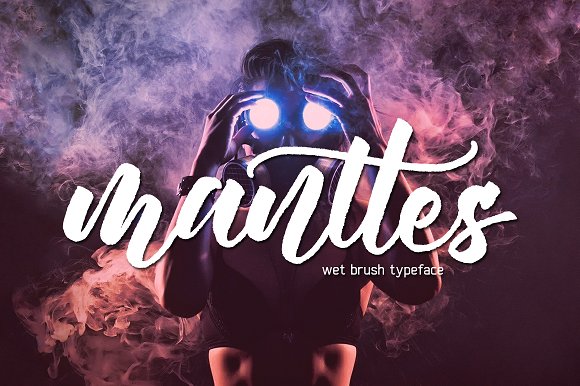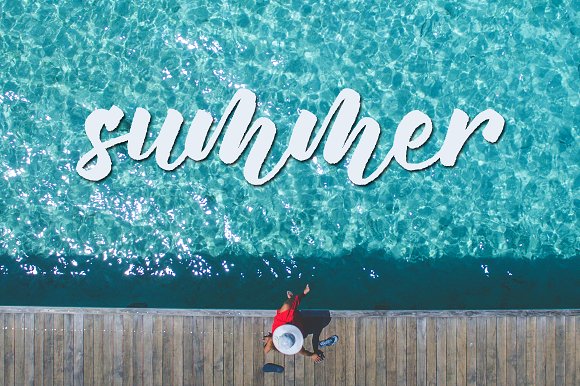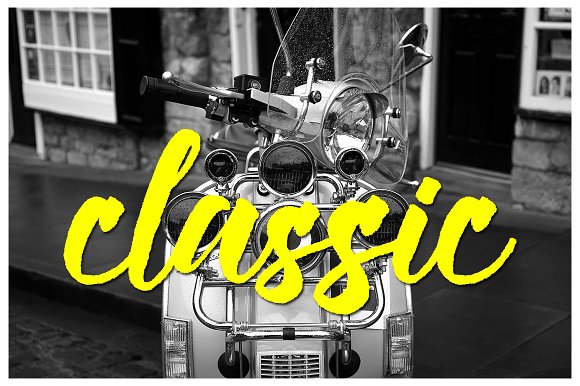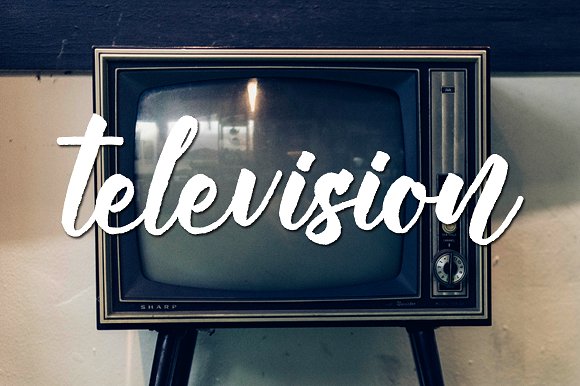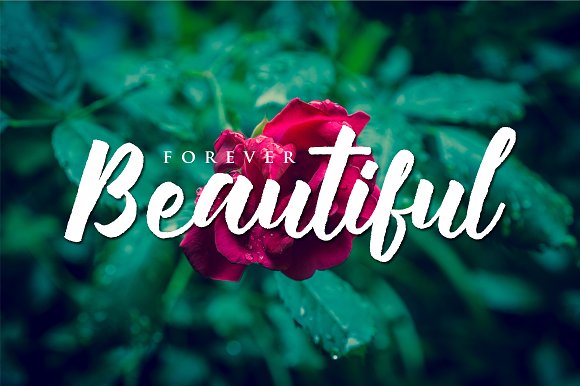
Manttes Typeface
Manttes Typeface a handmade font awesome, new fresh & modern script with a calligraphy style. Can used for anything from promotional material and handwritten quotes, to product packaging, labels, logo, newsletters, posters, merchandise and branding projects.